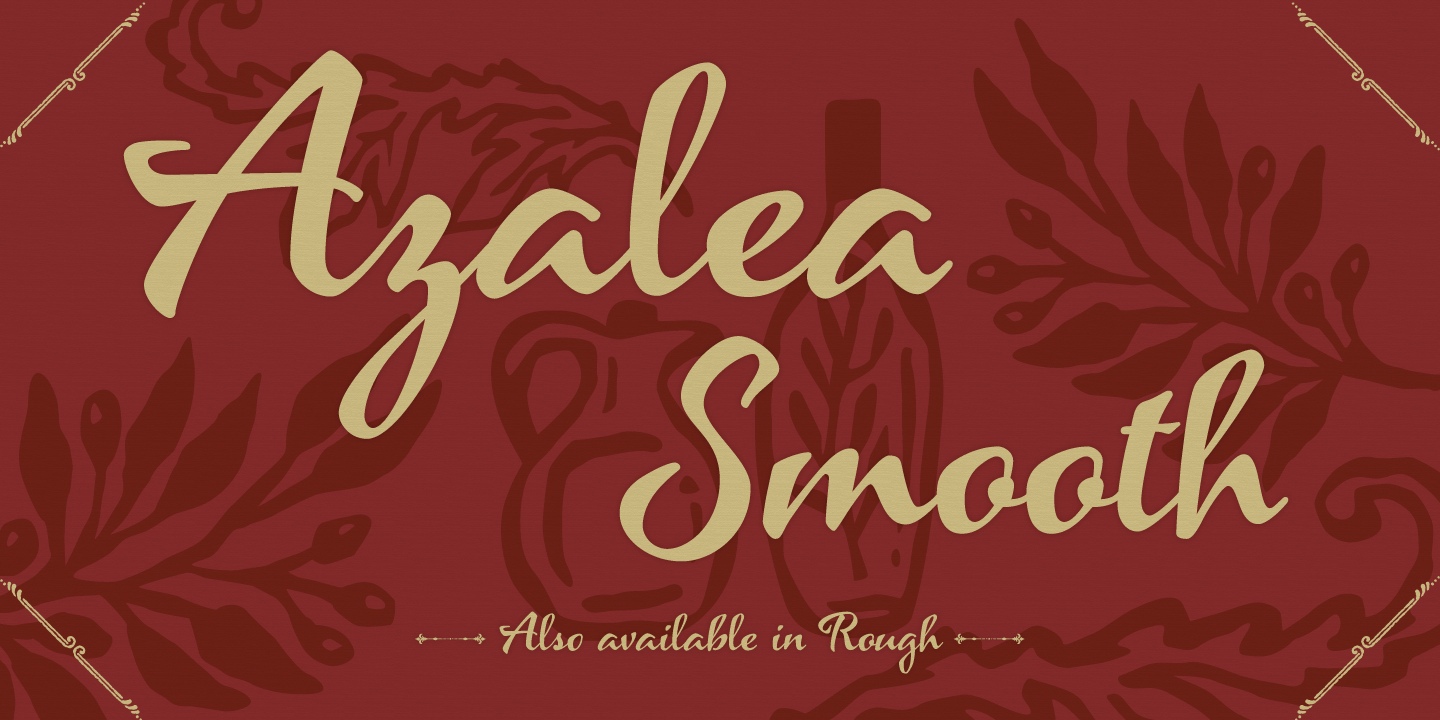
Azalea Smooth Font
Azalea Smooth Font is perfect for botanical garden branding, floral design business logos, spring wedding invitations, flower shop signage, garden center marketing, nature-inspired beauty products, botanical illustration projects, greenhouse communications, landscaping company materials, and organic skincare packaging.
What makes Azalea Smooth Font so exciting is its graceful botanical elegance and silky smooth flow that perfectly captures the delicate beauty of blooming flowers through refined letterforms that seem to blossom naturally across the page like petals unfurling in gentle spring sunshine. This typeface embodies the essence of floral sophistication through its organic curves and gentle transitions that immediately communicate natural beauty, growth, and the serene elegance of well-tended gardens. The font's enchanting appeal stems from its ability to convey botanical grace, natural refinement, and organic luxury while maintaining professional polish for high-end floral and botanical applications.
Azalea Smooth Font comes in multiple weights and styles including Light, Regular, Medium, and Bold variations, featuring botanical ornaments, floral flourishes, and nature-inspired decorative elements that provide extensive customization possibilities for complete garden and floral brand systems.
Whether you're developing botanical business identities, creating floral marketing materials, or designing garden-themed communications, Azalea Smooth Font Free Download delivers authentic botanical elegance and natural sophistication. This beautiful typeface excels across all floral applications, from delicate wedding stationery to large-scale garden center signage, maintaining its smooth character while ensuring excellent readability. The font's organically flowing letterforms feature gentle curves and refined proportions that create text with genuine botanical personality and garden-inspired authenticity.
Floral industry professionals and botanical businesses consistently choose Azalea Smooth Font for projects requiring authentic garden appeal and natural elegance positioning. Its smooth styling makes it particularly effective for florists, botanical gardens, landscaping companies, and nature-inspired brands seeking to communicate organic beauty, natural luxury, and botanical expertise. The font's elegant personality and floral authenticity create immediate connection with audiences who appreciate natural beauty while communicating values of growth, natural harmony, and botanical craftsmanship that are essential for success in floral and gardening market segments.